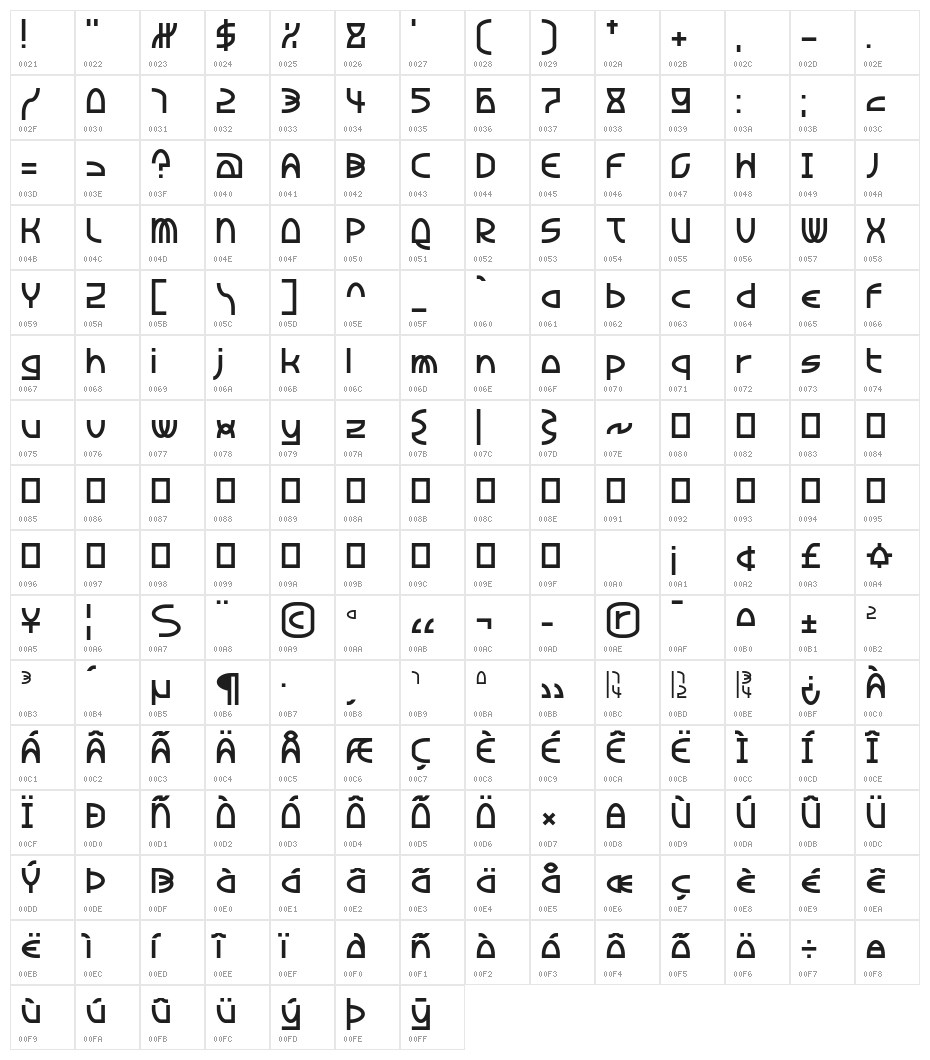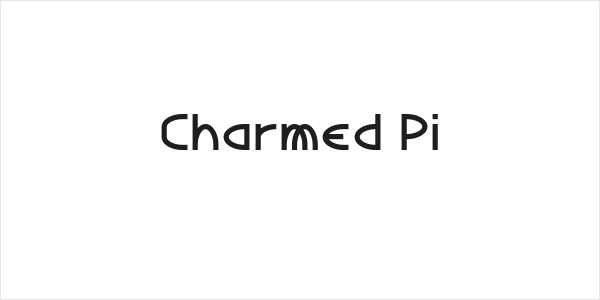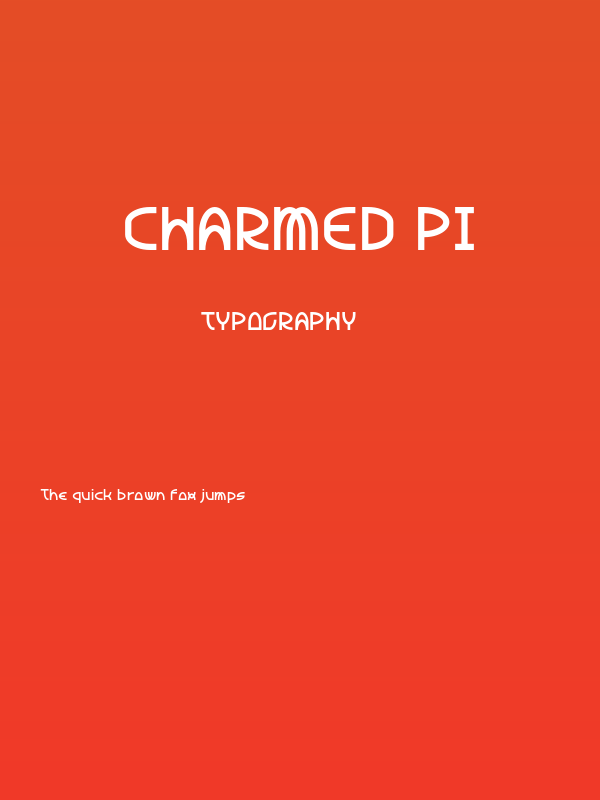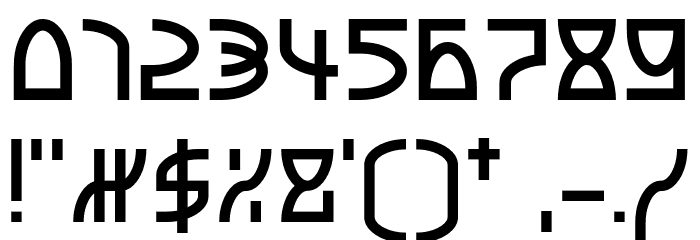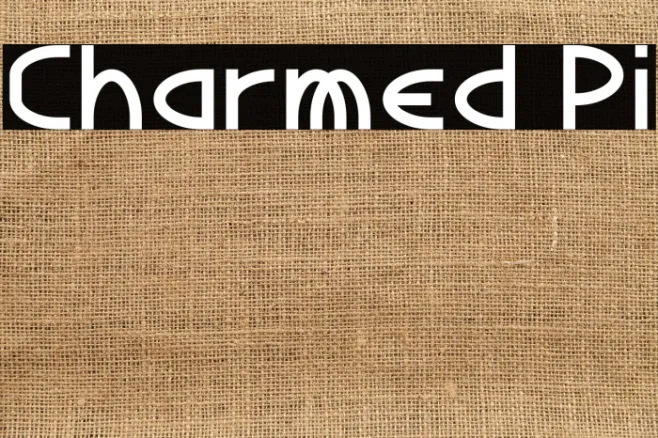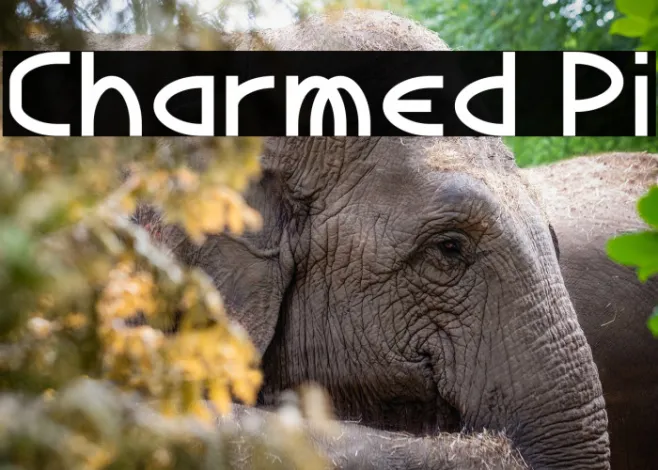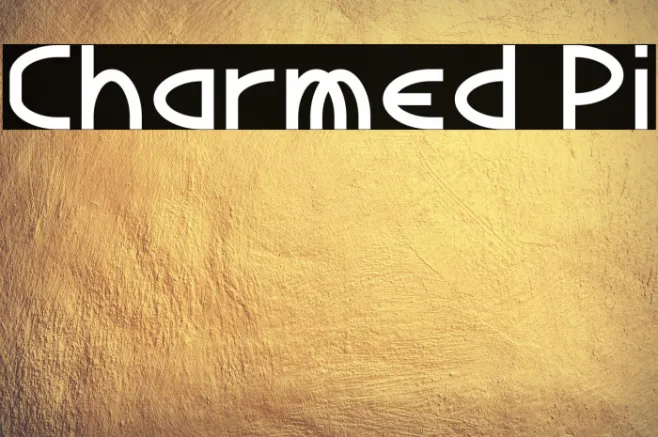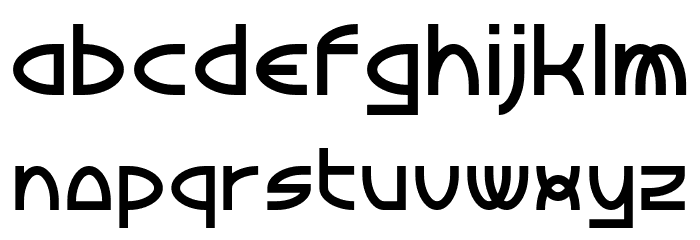
Charmed Pi Font
Charmed Pi Description
This font features a unique and modern design with a futuristic flair. The characters are bold and have a geometric structure, characterized by clean lines and distinct curves. The uppercase letters exhibit a consistent height and width, while the lowercase letters maintain a similar style with slightly softer edges. Numbers are equally bold, maintaining the geometric theme, and the special characters are designed to complement the overall aesthetic. The font's design is both eye-catching and legible, making it suitable for various creative applications.